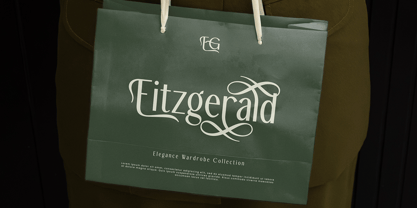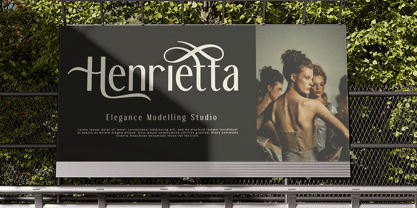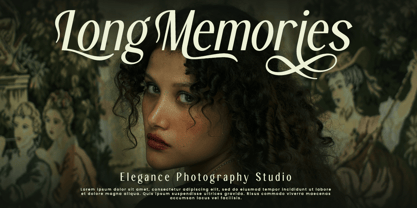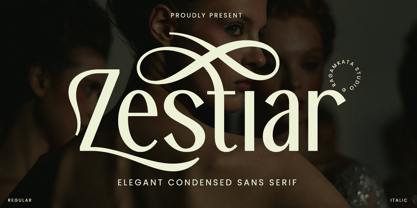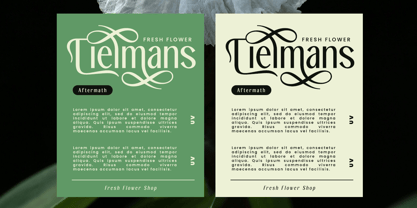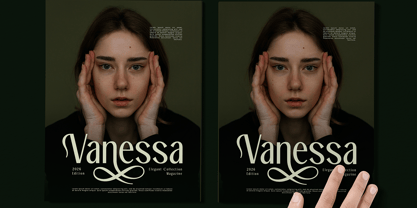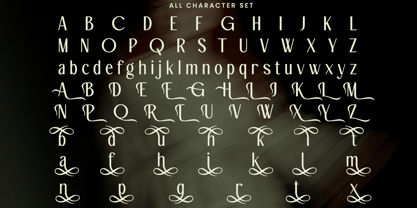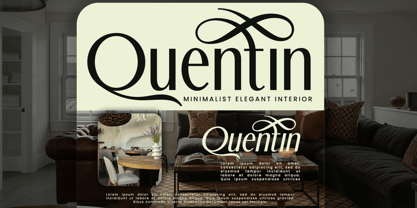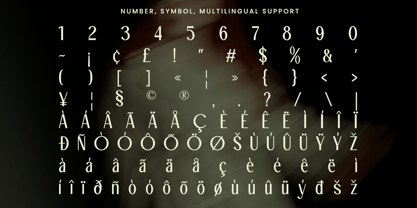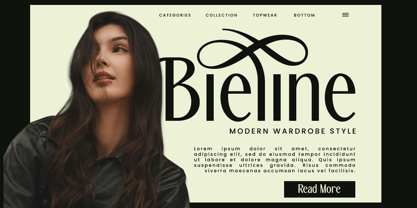
Zestiar
The Zestiar Font Family was designed by Yogiswhara Dio Prakoso Riadi and published by RagamKata. Zestiar contains 2 styles and family package options. More about this family
Zestiar is an elegant condensed sans serif typeface that seamlessly blends modern sophistication with a graceful personality. Designed to stand out while maintaining refinement, Zestiar showcases smooth curves, balanced proportions, and stylish ligatures, giving it a distinctive and premium feel. Its condensed structure is ideal for impactful typography without sacrificing readability, enabling designers to craft bold yet elegant visual statements. Perfect for branding & logos, fashion editorials, luxury packaging, magazine headlines, beauty and lifestyle brands, posters, social media graphics, wedding invitations, product labels, and web headers. Thank You! Ragamkata